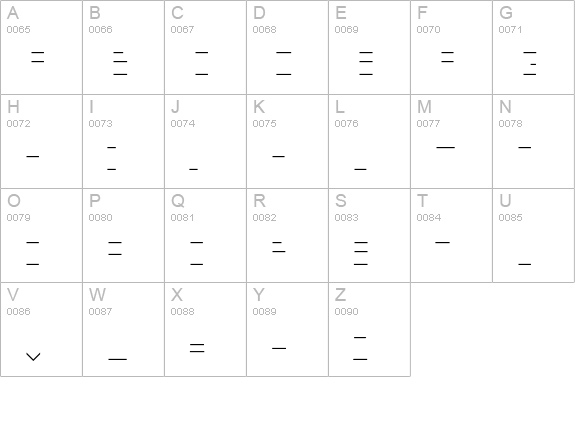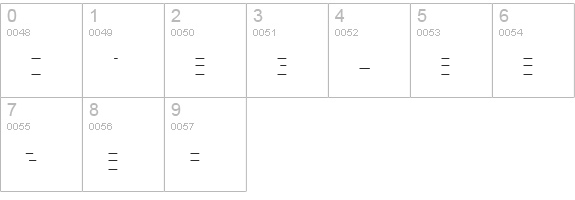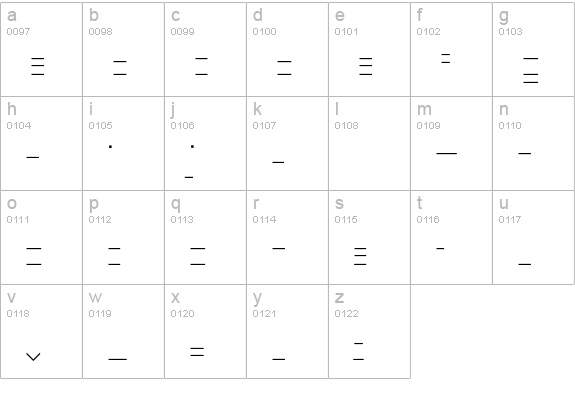
Minimum-BClairHorizontal Font Details
Minimum-BClairHorizontal is a sleek and modern font that exudes sophistication and elegance. Its clean lines and minimalistic design make it perfect for a wide range of design projects, from branding to editorial work. This font strikes the perfect balance between professionalism and creativity, making it a versatile choice for designers looking to make a statement. What sets Minimum-BClairHorizontal apart is not only its stylish appearance but also its versatility. Whether you're designing a logo, website, or print materials, this font will add a touch of class and sophistication to your project. Its horizontal orientation adds a unique twist that sets it apart from other fonts. Best of all, Minimum-BClairHorizontal is completely free to download at FontsMarket.com. This means you can start using this elegant font in your projects right away, without having to worry about any additional costs. Don't miss out on the opportunity to enhance your designs with this stunning and versatile font. Download Minimum-BClairHorizontal today and take your designs to the next level.